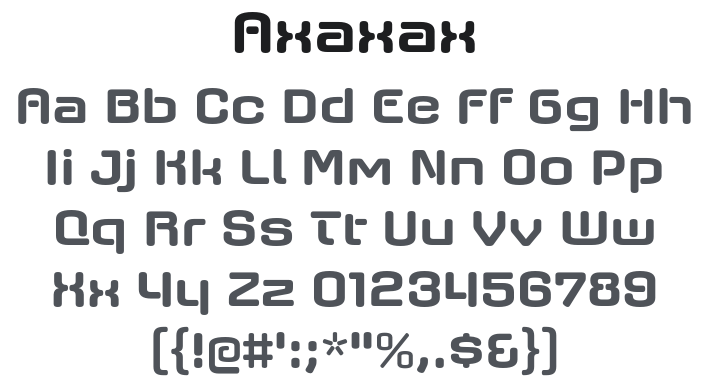
Axaxax Font
About Axaxax
Axaxax is a modular techno display font built for longevity, combining geometric precision with a fluid, neon-like rhythm. Its distinct stroke breaks evoke circuitry and vector plotting without falling into retro-futurist pastiche. Across multiple weights and matching italics, it stays sharp and legible, from hairline finesse to bold authority. Seen everywhere from early rave posters to the CSI: Miami logo, Axaxax has evolved into a polished, versatile tool for sci-fi titles, tech branding, and architectural design. Futuristic yet timeless, it brings engineered clarity to every layout.